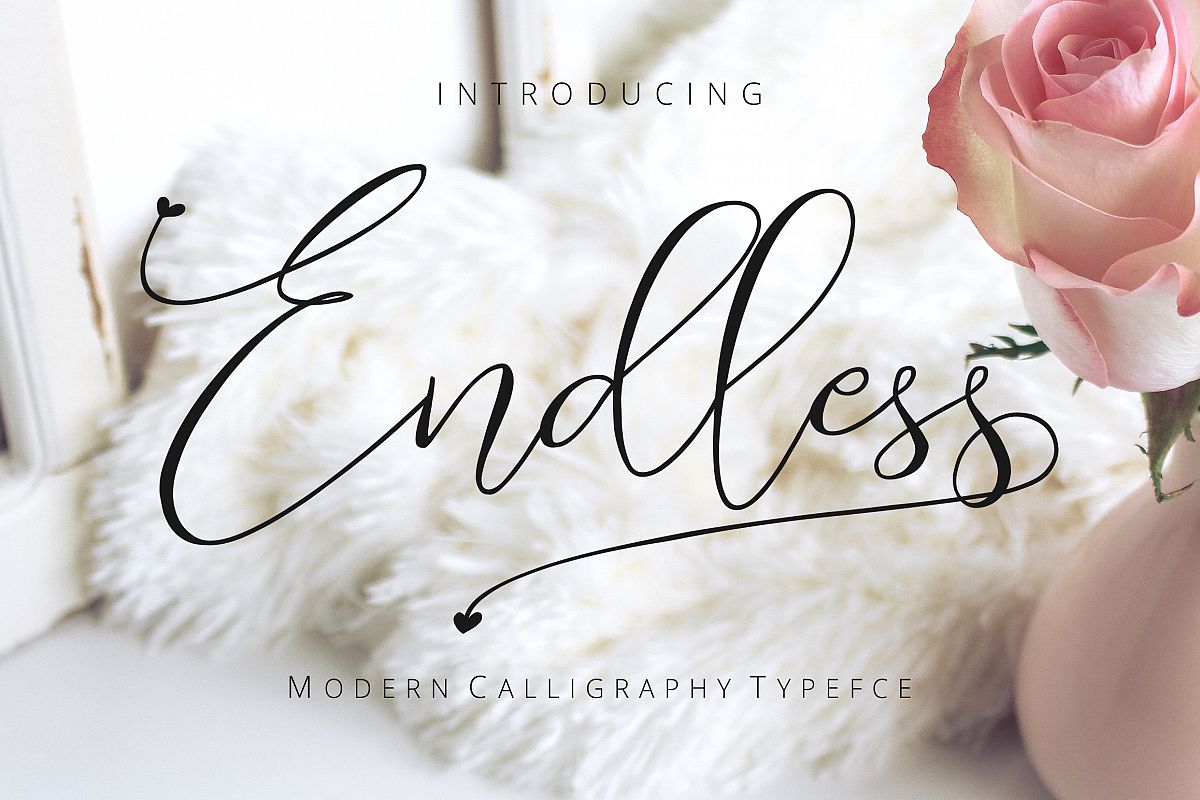
Endless Script
“I knew from the start that I loved her and knew, as well, that I would never fall back from that love, never try, never want to.”
Endless is a feminine font with a modern script style, this font will be perfect for many different projects: quotes, blog headers, watermarks, posters, weddings, photography, branding, logotext, fashion, clothing, letters, invitations, stationery, etc.